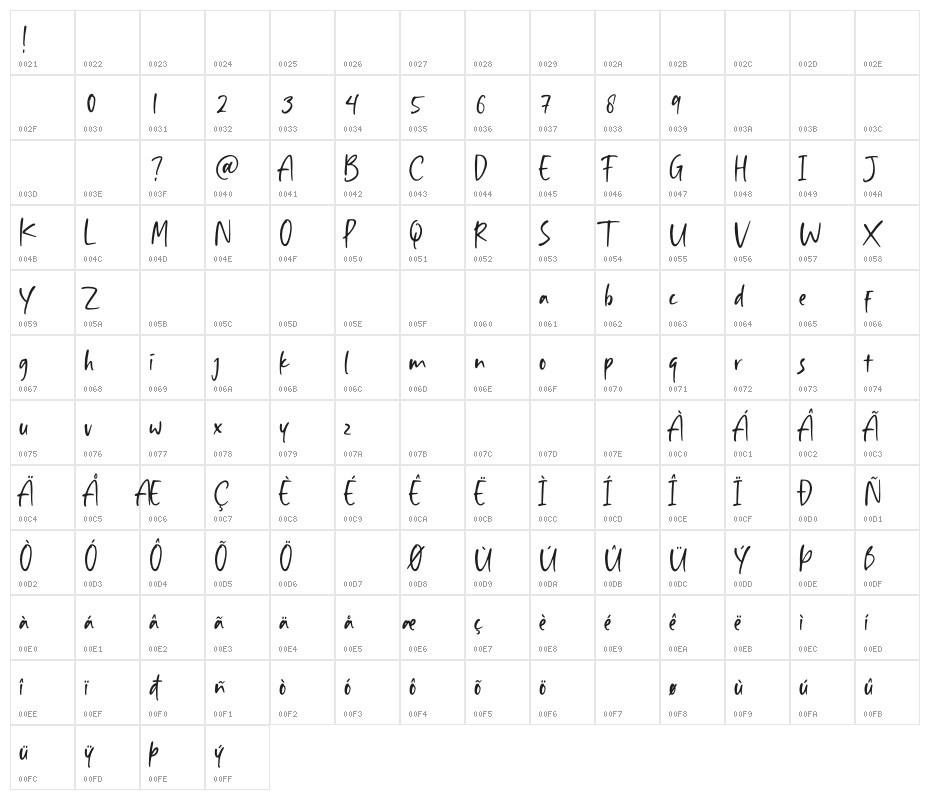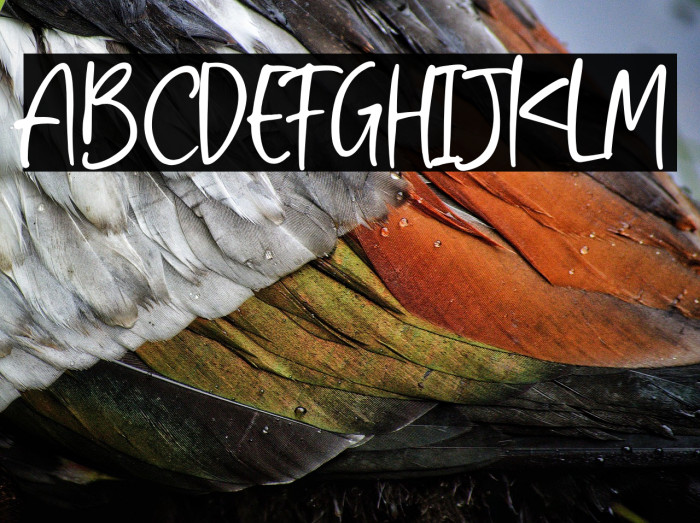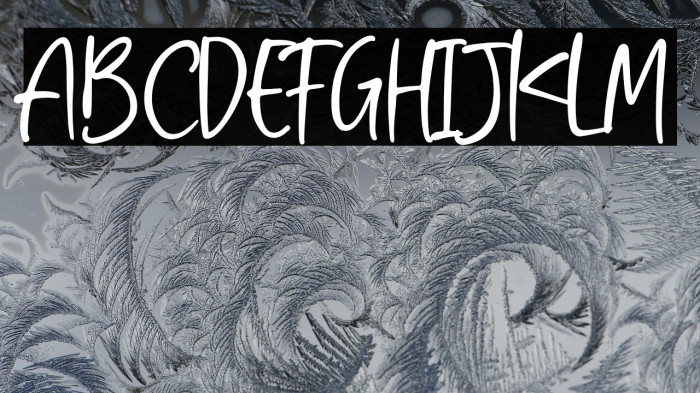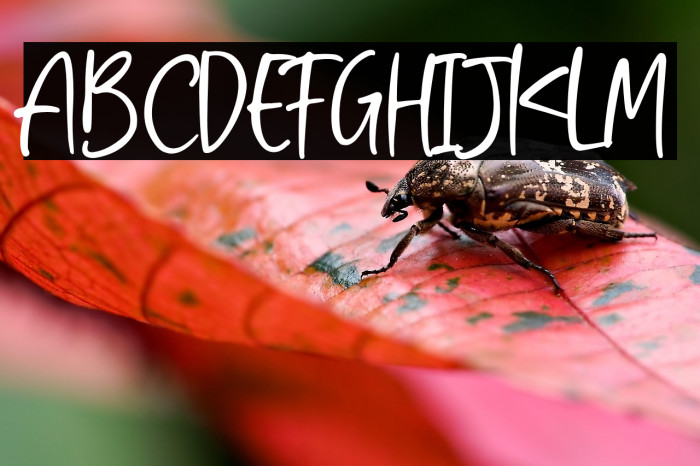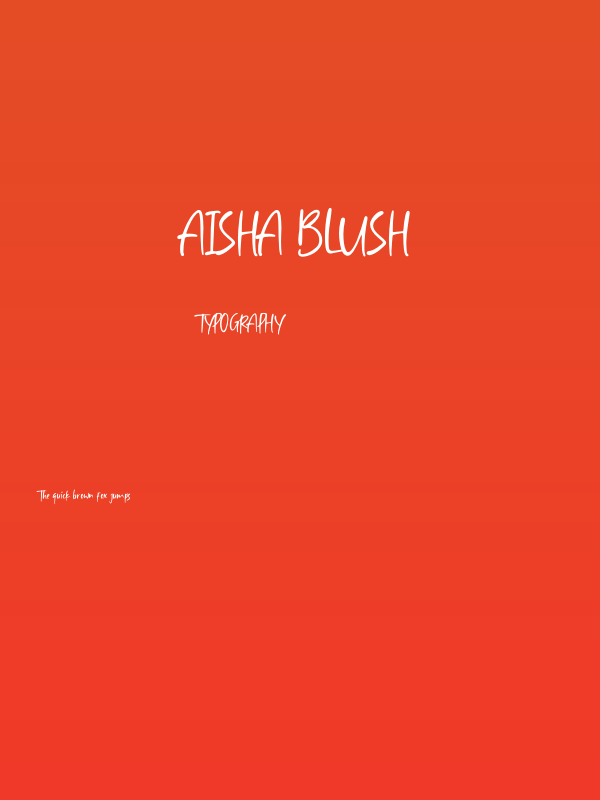
Aisha Blush Font
| Общий стиль | Casual, Playful |
| Область применения | Headlines, Logos, Invitations |
| Рекомендуемые проекты | Ideal for greeting cards, invitations, personal branding, social media graphics, and creative projects that require a personal touch. |